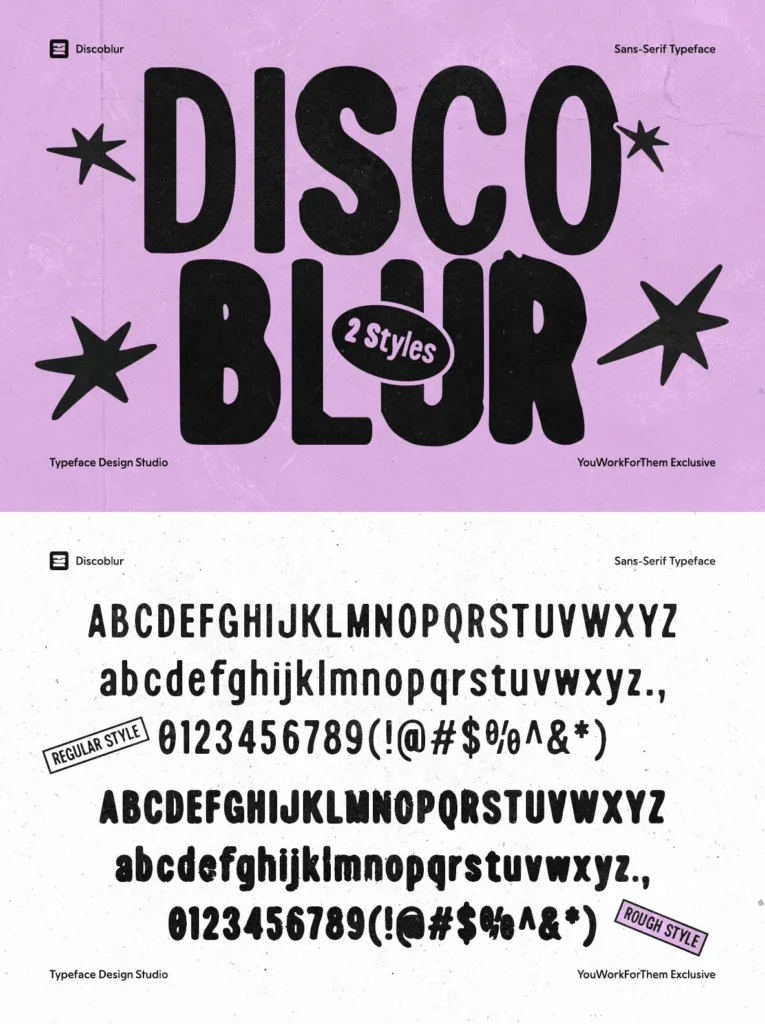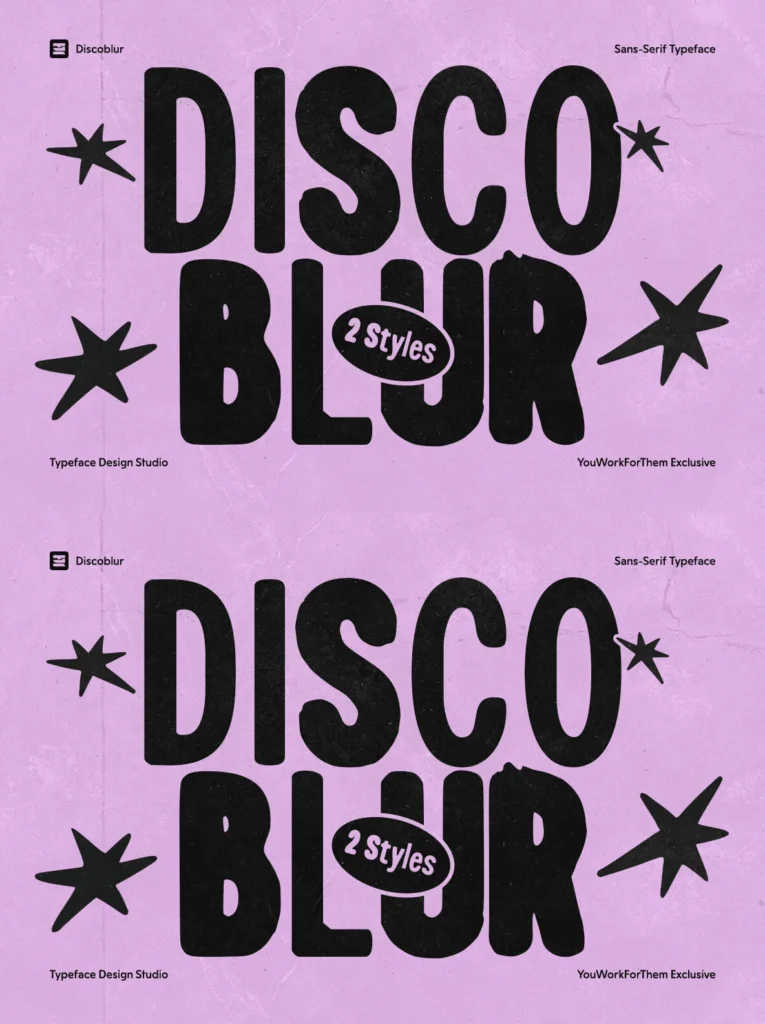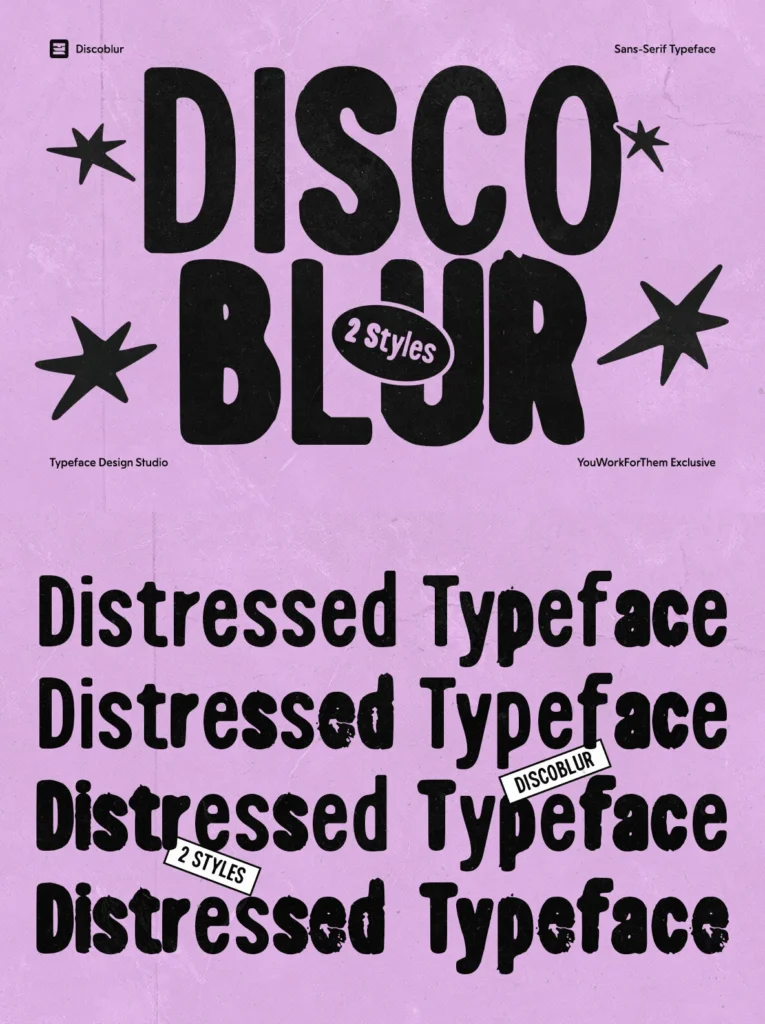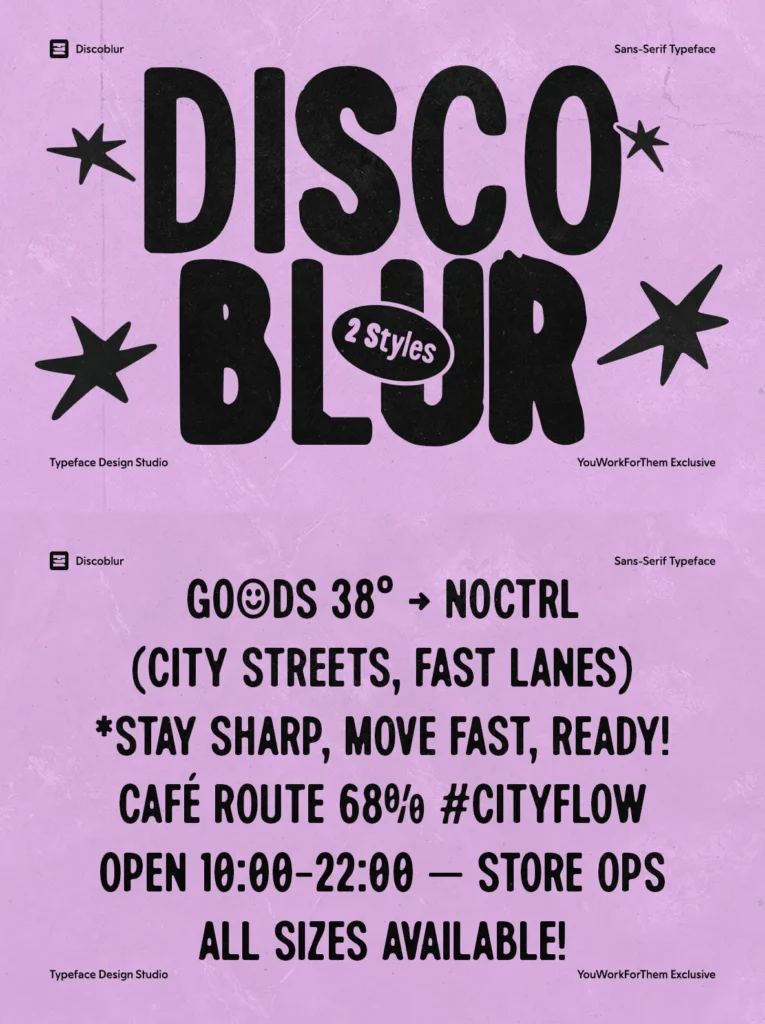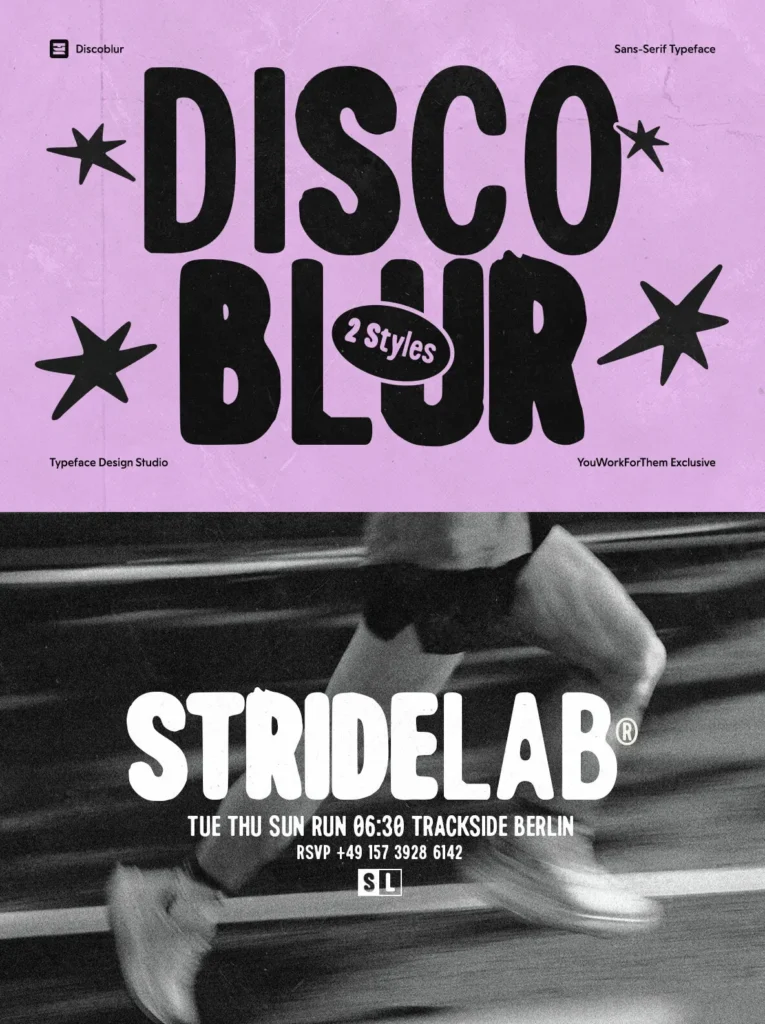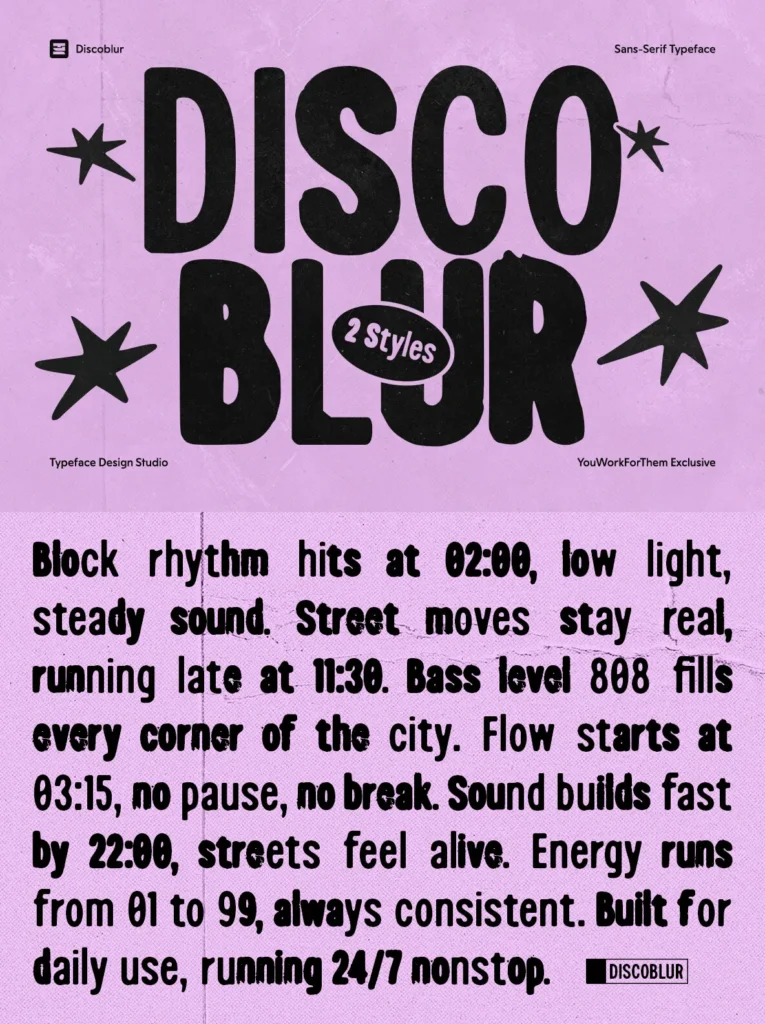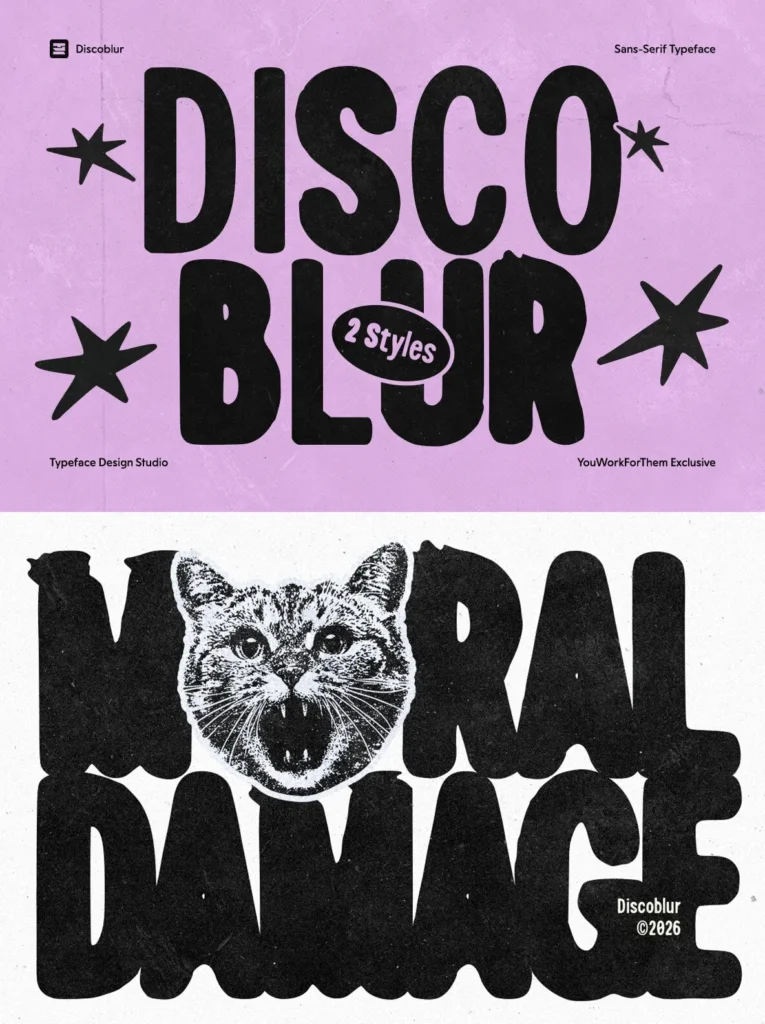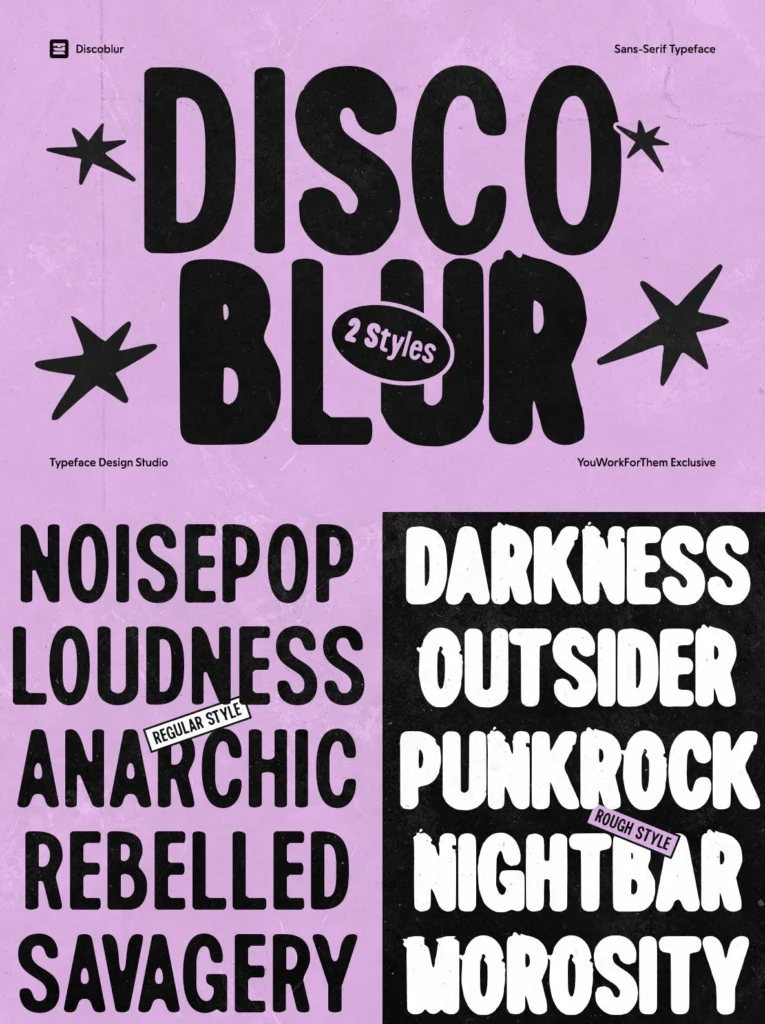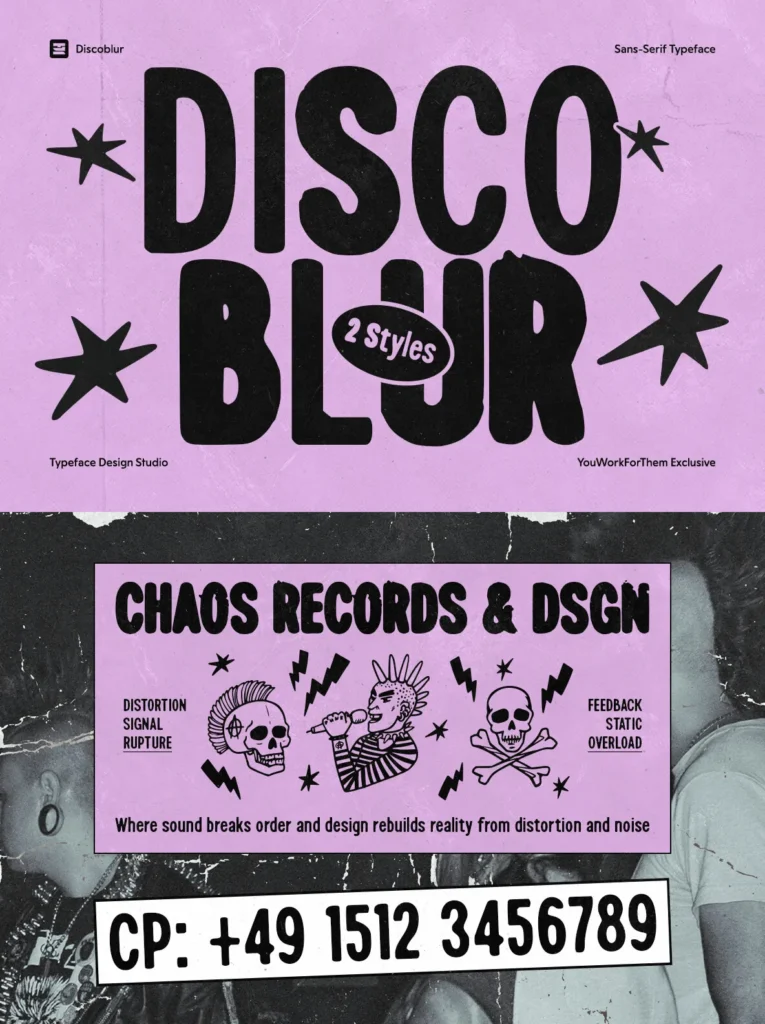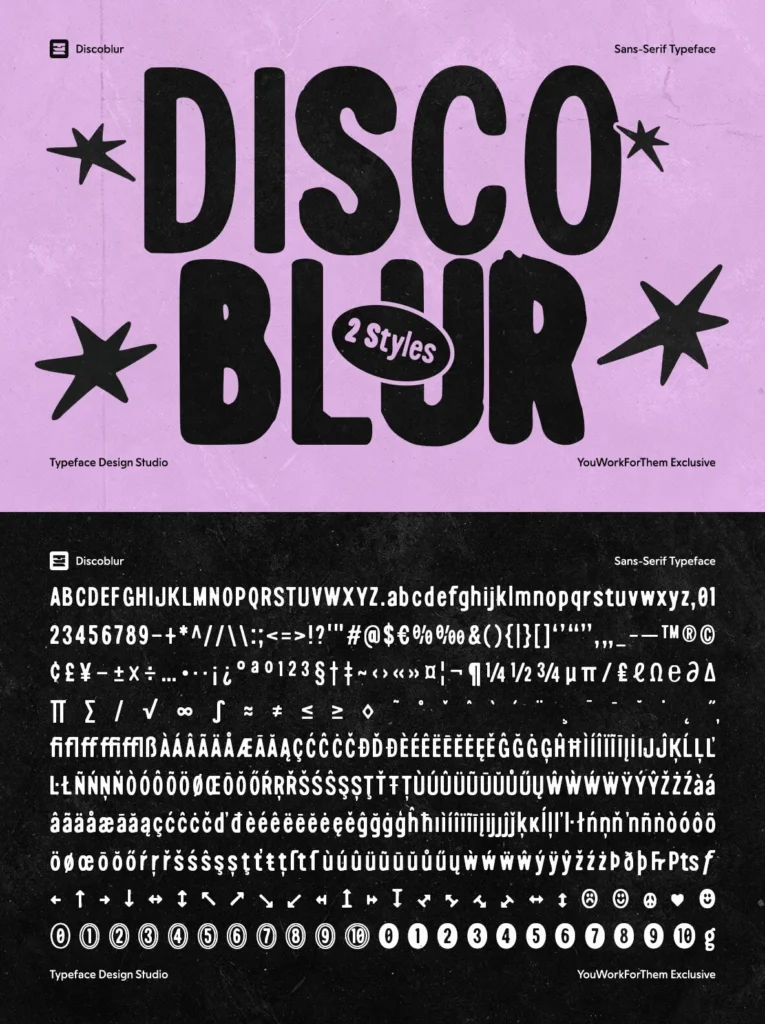
Discoblur — Distress With Discipline
Discoblur is a heavy distressed sans-serif built for the modern workflow. Designed by Typeface Design Studio as a YouWorkForThem exclusive, it gives designers a bold display font with two distinct textures. Regular carries a clean ink-bleed quality at body and mid-sizes, while Rough delivers heavy surface distress at display scale.
The family brings a level of control not typically found in distressed typefaces. One style feels contained and usable for supporting text; the other brings a raw, worn presence for headlines, logos, and large-format typography. Both share consistent proportions and careful typographic drawing, giving Discoblur practical range across branding, posters, merchandise, digital content, and interface work.
Designed for Today, Not the Nineties
Many grunge fonts from the nineties were built with minimal technical depth, low glyph counts, no language support, and no OpenType features. Discoblur addresses those limits with 446 glyphs, broad language coverage across Latin and Greek-based sets, and nine OpenType features.
Styles / Glyphs
Regular
Rough
446 glyphs
Use Cases
Punk and independent music branding
Sports and streetwear labels looking for an edgy headline weight
Event posters
Merch graphics
Social media content
App UI where personality at large sizes matters
Secondary text, especially with the Regular style at smaller scales
Titles, logos, and any scenario that benefits from a worn, high-contrast typographic presence, especially with the Rough style
OpenType Features
Alternates, Fractions, Standard Ligatures, Stylistic Alternates